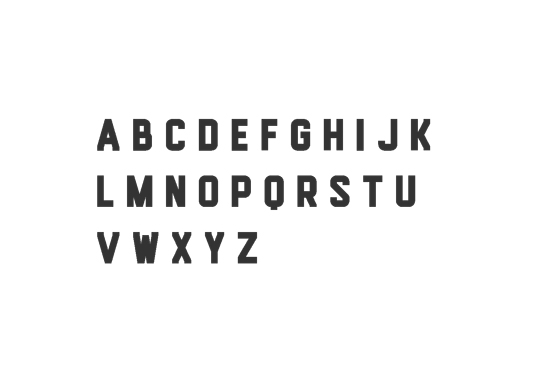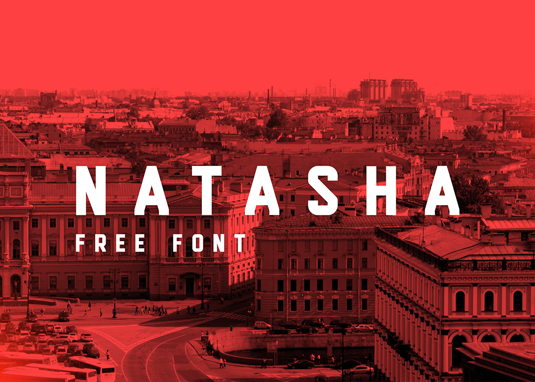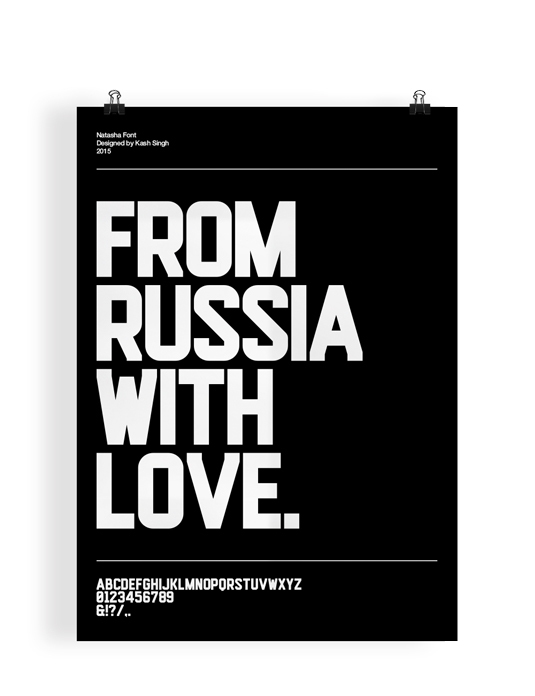
Font of the day: Natasha
Natasha by Kash Singh
If you're on the hunt for a bold display typeface, Natasha by designer and type enthusiast Kash Singh may be just the thing. And it's totally free!